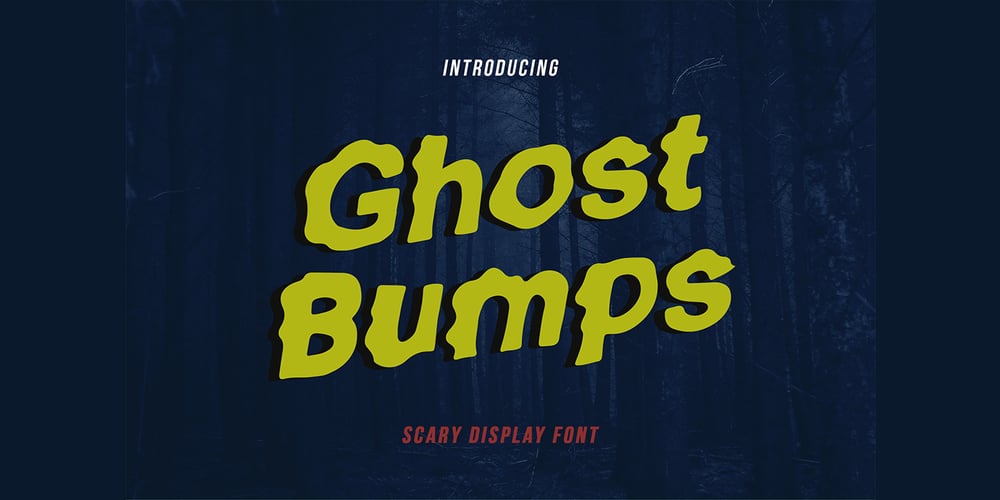
Ghostbumps Font Family was designed by Yahdi Kumala and published by Rometheme. Ghostbumps contains 1 styles and family package options. Introduce our new font “Ghostbumps” is a scary display font, this font looks horror, cool, cartoon, playful, catchy and easy to use.Highlight :- Easy instalation- Work on PC or Mac- PUA Encoded Support- Basic Latin A-Z and a-z- Numbers- Symbols- No special software is required, The fonts can be opened and used in Adobe Illustrator, Adobe Photoshop, Adobe InDesign, even work on Microsoft Word.